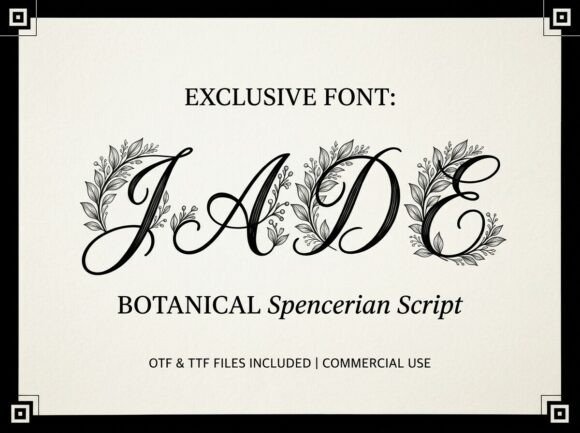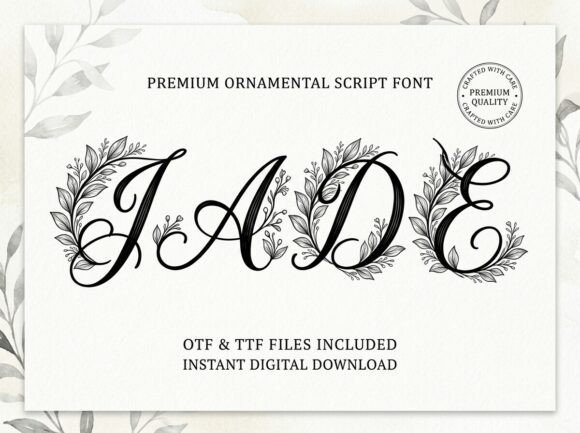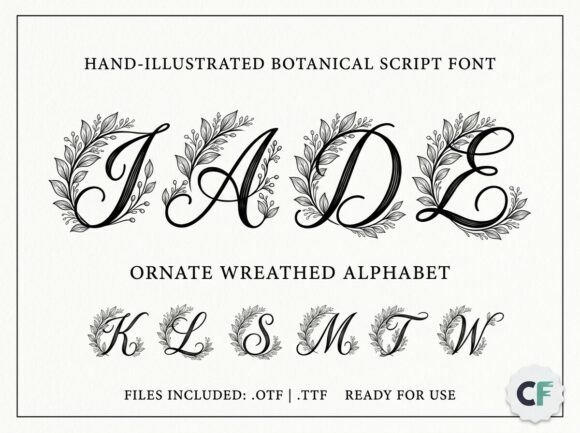
The Perfect Stroke of Genius: Introducing Jade Font
You’ve stared at a blank page, your mind racing with ideas, but nothing seems to click. The cursor blinks relentlessly, taunting you with its emptiness. And then, like a whisper of inspiration, it hits you – the perfect font to make your design pop. Enter Jade Font, a stunning decorative display font designed to be the center of attention.
This exquisite font is more than just a typographic choice; it’s a statement piece that elevates your design to new heights. With its unique artistic elements and strong visual personality, Jade Font is perfect for creators who want to break away from the ordinary. Its versatility makes it ideal for bold headlines, artistic logos, and creative packaging, all while maintaining a professional and polished finish.
- Unique Characteristics: Jade Font features a unique blend of traditional and modern calligraphy, making it perfect for a wide range of design applications.
Jade Font Review
Overall, I’m impressed with Jade Font’s unique style and versatility. Here are some aspects that I think work particularly well:
- ✨ Unique Character Set – Jade Font offers an extensive character set that’s perfect for creating multilingual designs.
- ✨ High-Quality Fonts – The font is well-designed, with clear and readable characters that make it suitable for both body text and headings.
- ✨ Customizable – The font offers various style options, including bold, italic, and condensed versions, which can be used to create a unique visual identity.
- ⚠️ Not Suitable for Small Text – Due to its complex design, Jade Font may not be the best choice for small text sizes, as the characters can become difficult to read.
Overall, Jade Font is a solid choice for designers looking for a unique and customizable font. While it may have some limitations, its strengths make it a great option for a wide range of design projects.
Tips for getting the most out of Jade Font in Canva: Use Jade Font for headings and titles to add a touch of elegance and sophistication to your designs.
Tips for getting the most out of Jade Font in Adobe Photoshop or Illustrator: Use Jade Font for custom typography projects or as a design element to add texture and interest to your designs.
Tips for getting the most out of Jade Font in PowerPoint or Word: Use Jade Font for presentations or documents that require a professional and elegant touch.
Jade Font is ideal for:
- Custom typography projects